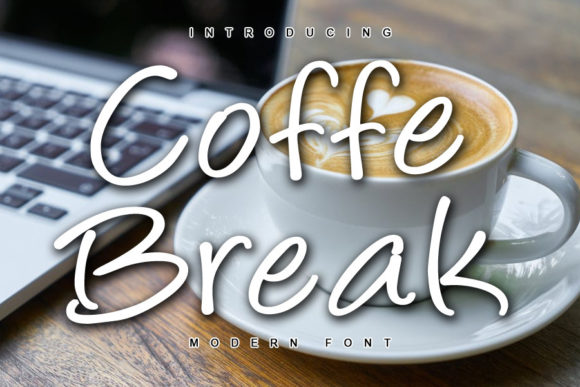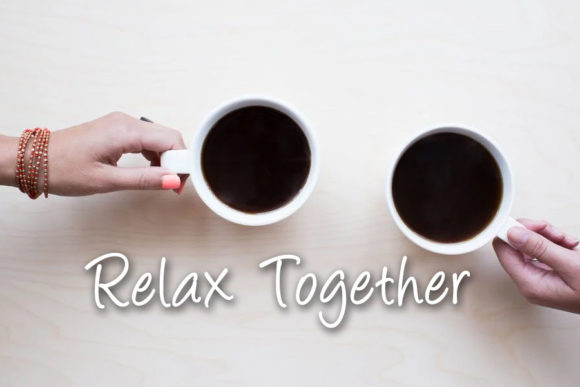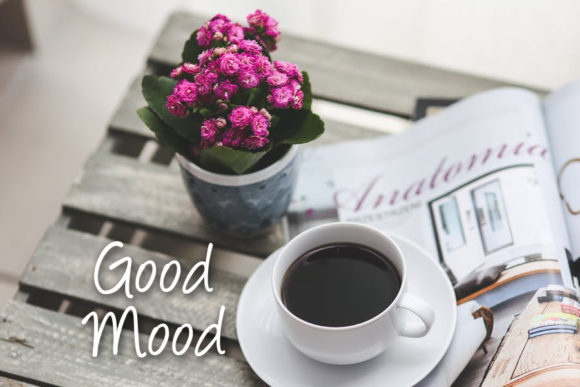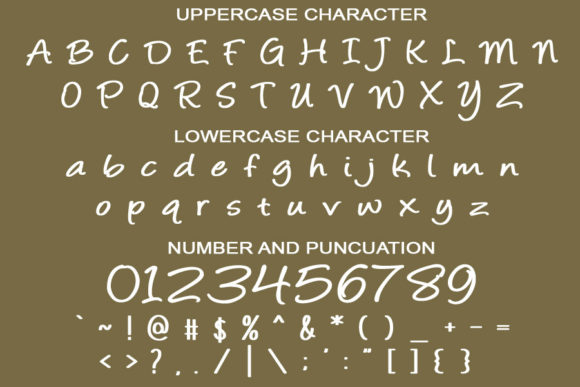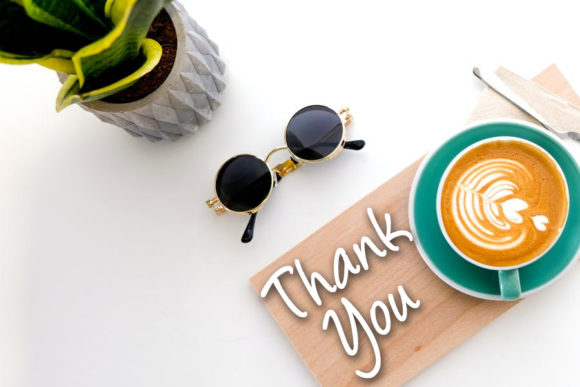
Coffe Break Font
About Coffe Break Font
Coffe Break is a simple and flowing handwritten font. This adaptable font will look great on a variety of design ideas. It will add a fun and friendly touch to each of your projects!